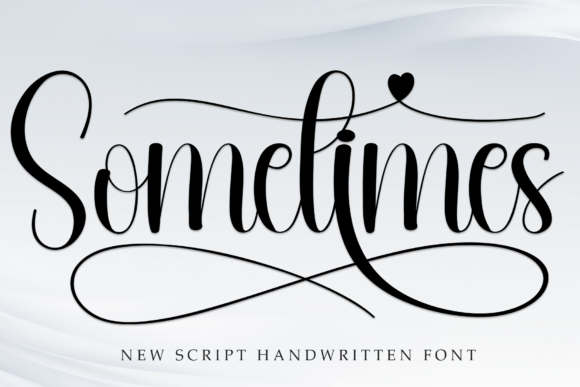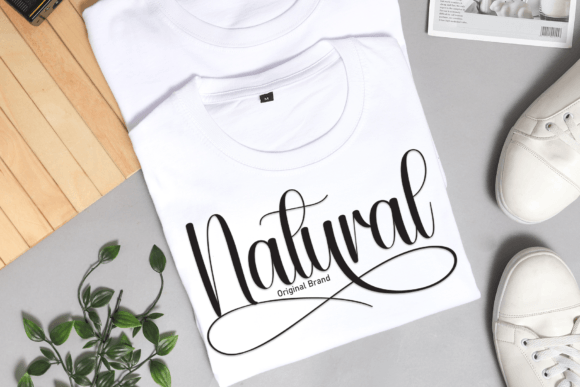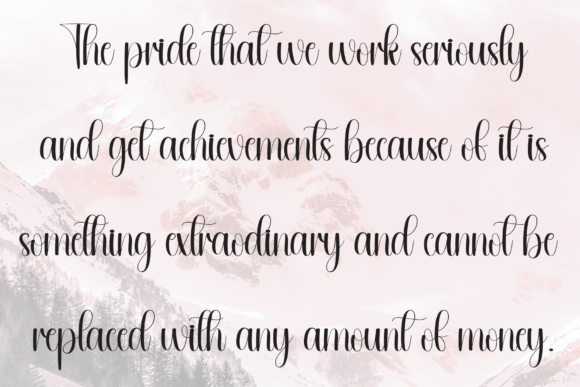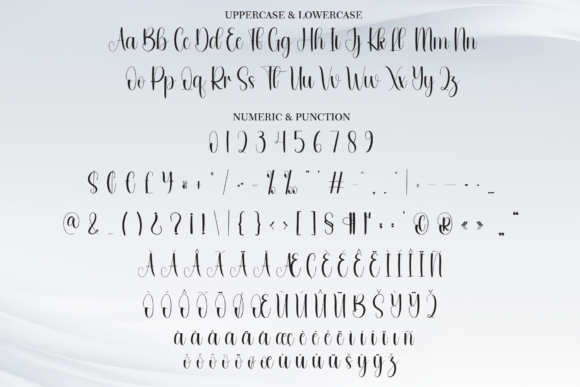
Sometimes is a sweet and friendly handwritten font. Fresh and casual, this font is ideal for writing wedding invitations, cards, or any other design that might need a lovely touch.
Sometimes Font